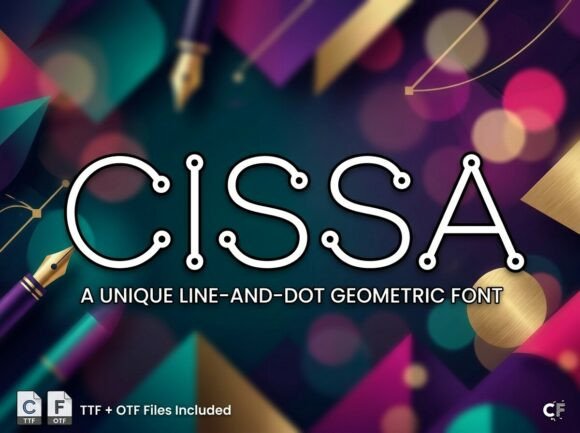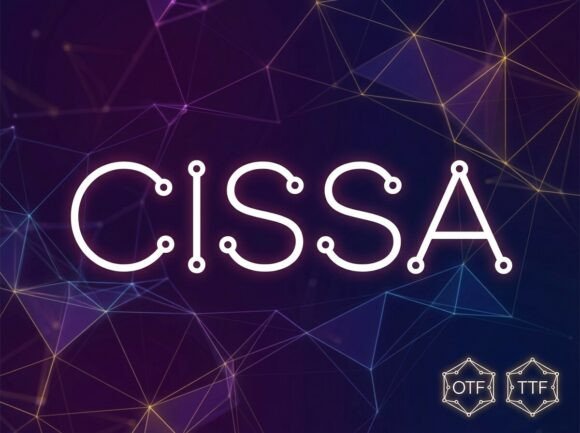
Introducing Cissa Font: Elevate Your Designs with a Celestial Touch
In the realm of typography, a font can make or break a design. For those seeking a typeface that embodies a sense of modernity, sophistication, and connection to the universe, Cissa Font is an exceptional choice. This sleek display font is designed to capture the essence of a “celestial-and-connected” soul, making it perfect for designs that aim to inspire, uplift, and intrigue.
The Design Philosophy Behind Cissa
Cissa Font boasts thin, monolinear letterforms that are not only visually striking but also carry a deeper design philosophy. The font features rhythmic terminal nodes and connecting points that evoke the structure of a star constellation. This thoughtful design element creates an airy geometric balance, giving Cissa a modern astronomical personality that is both captivating and memorable.
Key Characteristics of Cissa Font
• Thin, Monolinear Letterforms: Cissa’s sleek lines create a sense of elegance and sophistication, perfect for designs that require a touch of refinement.
• Rhythmic Terminal Nodes and Connecting Points: Inspired by star constellations, these elements add a unique celestial charm to the font.
• Airy Geometric Balance: Cissa achieves a perfect balance between form and space, making it highly readable and visually appealing.
• Modern Astronomical Personality: The font’s design captures the essence of the universe, lending itself to themes that are out of this world.
Ideal Applications for Cissa Font
Cissa Font is versatile and can be used across various design projects. However, its unique characteristics make it particularly suited for:
• Independent Wellness Branding: For brands that focus on holistic health, mindfulness, and well-being, Cissa offers a clean and uplifting aesthetic.
• Minimalist Tech Logos: Tech companies looking for a modern, forward-thinking logo will find Cissa’s sleek lines and celestial connections appealing.
• Modern Jewelry Packaging: The font’s elegance and sophistication make it a perfect match for luxury jewelry brands seeking a contemporary look.
• High-Impact Social Media Headers: For social media content that aims to stand out, Cissa provides a stellar and sophisticated touch.
Why Choose Cissa Font?
In a sea of typefaces, Cissa stands out for several reasons:
• Unique Design: Its celestial-inspired design elements are not commonly found in other fonts, making Cissa a distinctive choice.
• Versatility: Whether your project requires a touch of elegance, modernity, or a cosmic vibe, Cissa adapts seamlessly.
• Legibility: Despite its thin lines, Cissa maintains high legibility, ensuring your message is conveyed clearly.
Cissa Font is more than just a typeface; it’s a design statement. With its sleek lines, celestial inspiration, and modern personality, it’s poised to illuminate your designs. Whether you’re a designer, a craftsperson, or a business owner looking to elevate your brand, Cissa offers a unique blend of sophistication, elegance, and cosmic charm. Make your designs shine with Cissa and leave a lasting impression on your audience.
Cissa Font is not just a typeface; it’s a gateway to creating designs that are not only visually stunning but also carry a deeper narrative. Embrace the celestial beauty of Cissa and watch your designs soar to new heights.